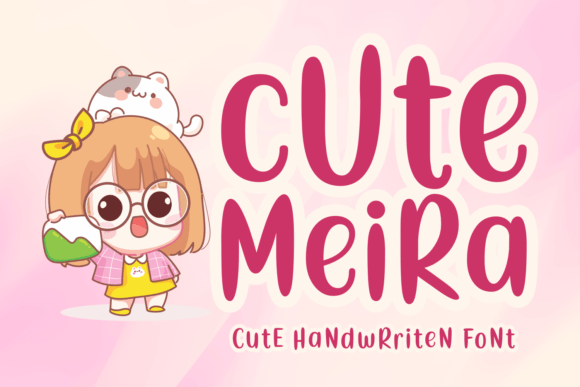
Bring a Touch of Whimsy to Your Designs
Have you ever stared at a blank page, waiting for the perfect idea to strike? The blank canvas can be intimidating, but it’s also a chance to let your creativity shine. As a designer, you know that the right font can make all the difference in bringing your vision to life.
Enter the Cute Meira Font, a beautiful and adorable handwritten font that’s sure to capture hearts. With its playful, cursive style, this font is perfect for adding a touch of whimsy to your designs. Whether you’re working on a children’s book, a wedding invitation, or a social media campaign, Cute Meira Font is the perfect addition to your typography toolkit.
As a designer, you’re always on the lookout for unique and versatile fonts that can elevate your work. Cute Meira Font delivers on both counts, offering a range of creative possibilities that are sure to inspire your next project.
Cute Meira Font Key Features
- Font Family: Cute Meira Font is a modern script font with a cute and playful touch, perfect for various design projects.
- Unique Characteristics: Cute Meira Font features a unique blend of playful and elegant styles, making it suitable for various design projects, including invitations, greeting cards, and social media graphics.
Cute Meira Font Review
Overall, I think the Cute Meira Font is a delightful addition to any design project. It has a certain charm that can add a playful touch to your work. ✨ The font’s rounded edges and soft curves make it perfect for designs that need a touch of whimsy.
- ✨ The font’s unique charm and personality shine through in its rounded edges and soft curves.
- ✨ It’s perfect for designs that need a touch of whimsy or playfulness.
- ✨ The font is highly legible, even at smaller font sizes.
- ⚠️ The font may not be suitable for formal or professional designs, as it can come across as too playful or childish.
- ⚠️ The font’s rounded edges can make it difficult to read at very small font sizes.
- ⚠️ The font may not be as versatile as some other fonts, as it’s primarily suited for playful or whimsical designs.
Overall, I think the Cute Meira Font is a great choice for designers who want to add a touch of playfulness to their work. While it may have some limitations, it’s a great option for designers who want to create fun and engaging designs.
To get the most out of the Cute Meira Font, try combining it with pastel colors and playful graphics. This font is perfect for creating eye-catching designs for social media, blog posts, or marketing materials.
The Cute Meira Font is commonly used for:
– Blog post headings
– Marketing materials
– Children’s book illustrations
– Wedding invitations
Alternative Fonts to Cute Meira Font
Great Vibes Font is a beautiful, handwritten script font that is perfect for creating a whimsical and playful atmosphere. It is ideal for use in branding, advertising, and packaging design. Great Vibes Font has a similar feel to Cute Meira Font but with a more modern and sophisticated look.
Alex Brush Font is a elegant and refined script font that is perfect for creating a sophisticated and high-end look. It is ideal for use in luxury branding, invitations, and wedding design. Alex Brush Font has a more refined and polished look compared to Cute Meira Font, making it suitable for formal and high-end designs.
Pacifico Font is a beautiful, modern script font that is perfect for creating a relaxed and casual atmosphere. It is ideal for use in branding, advertising, and web design. Pacifico Font has a similar feel to Cute Meira Font but with a more relaxed and laid-back look.